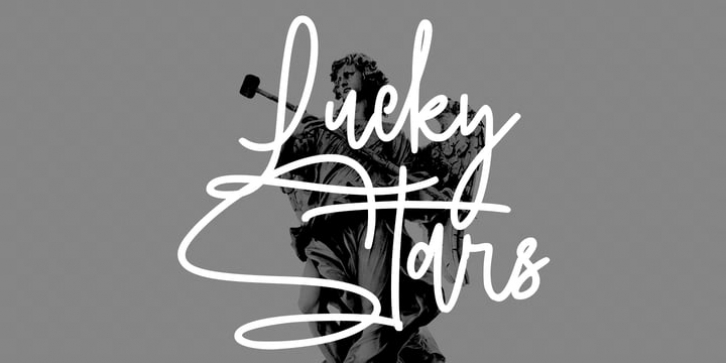
Blofishing Font Family was designed by Gilang Maulana, and  and  published by Maulana Creative. Blofishing contains 1 styles and family package options.
Blofishing is an expressive simply casual script font. With consist mono-line stroke, fun character. To give you an extra creative work. Blofishing font support multilingual more than 100+ language. This font is good for logo design, Social media, Movie Titles, Books Titles, a short text even a long text letter and good for your secondary text font with sans or serif. Make a stunning work with Blofishing font.